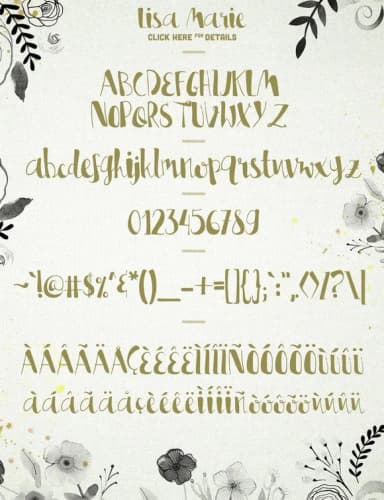
About Lisa Marie Font
Lisa Marie Font by Blue Robin Design Shop is a script typeface that faithfully captures the flowing, organic quality of authentic handwriting. The letterforms carry a natural rhythm and warmth that clearly distinguishes it from more geometric or rigid designs, making it particularly suited for projects where a personal, human touch is essential to the final impression.
This handwritten script excels at bringing character and sophistication to wedding invitation suites, artisan thank you cards, boutique skincare packaging, and specialty food labels. The readable letterforms maintain clarity even at smaller sizes without losing the genuine hand-lettered aesthetic that makes this typeface distinctive and memorable. It's equally effective for creating custom event stationery, DIY craft signage, handmade product labels, or branding materials that need to feel approachable and authentic rather than purely commercial or mass-produced.
Lisa Marie Font is a script font that shines as a display or heading face. Pair it with a clean sans-serif or serif font for body text β the contrast creates a clear hierarchy while the two styles stay balanced and easy to read.
Lisa Marie Font